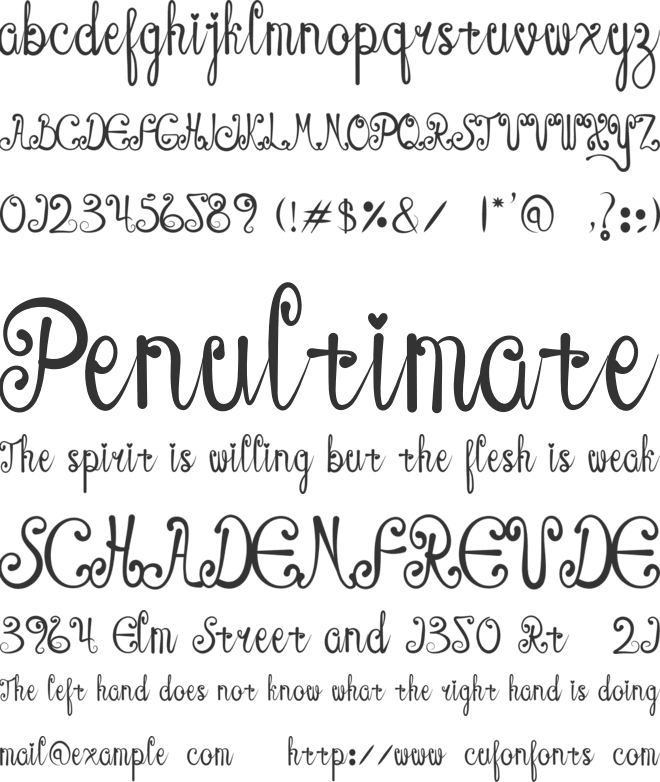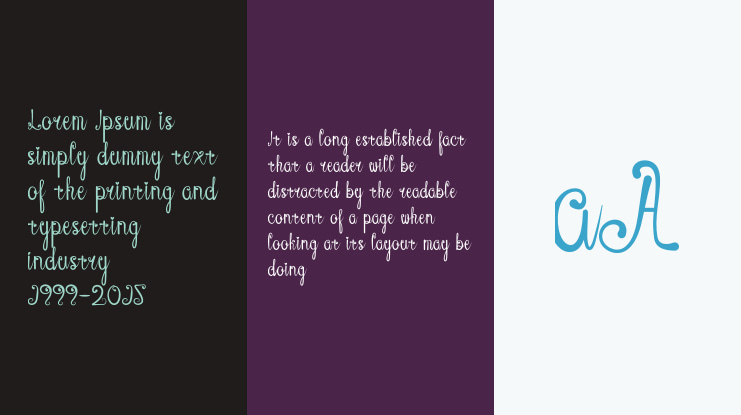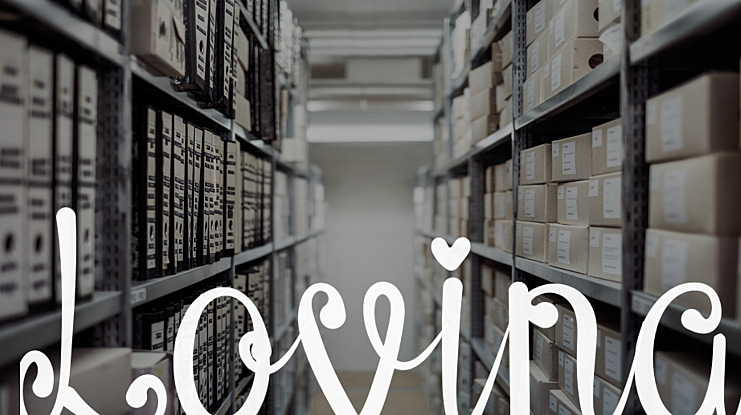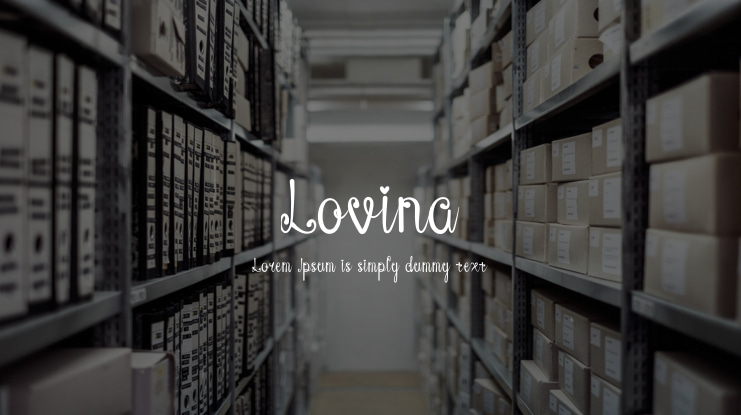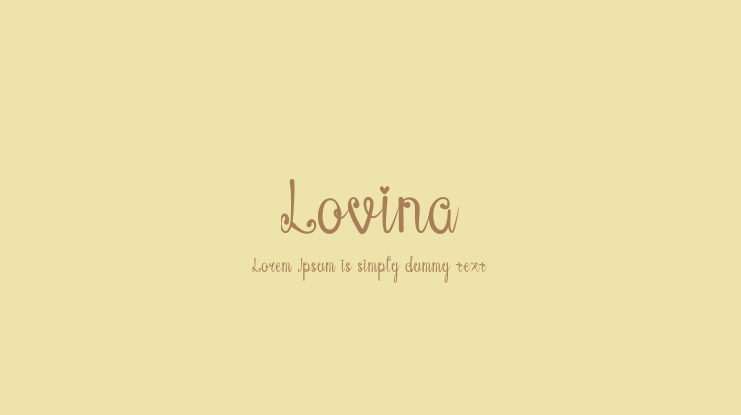
Lovina Font
Lavina is a chic and lovely handwritten font. Incredibly versatile, this font will fit a wide pool of designs. Fall in love with its incredibly stylish look and use it to create spectacular designs!